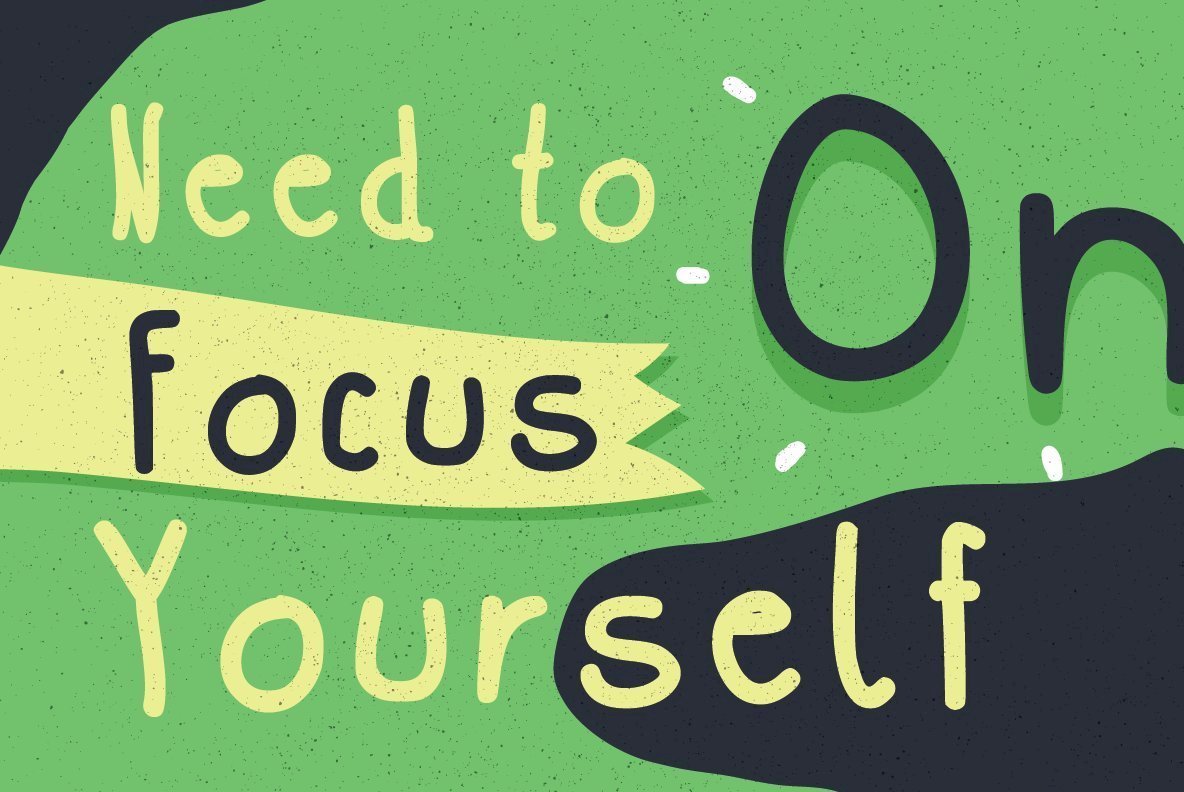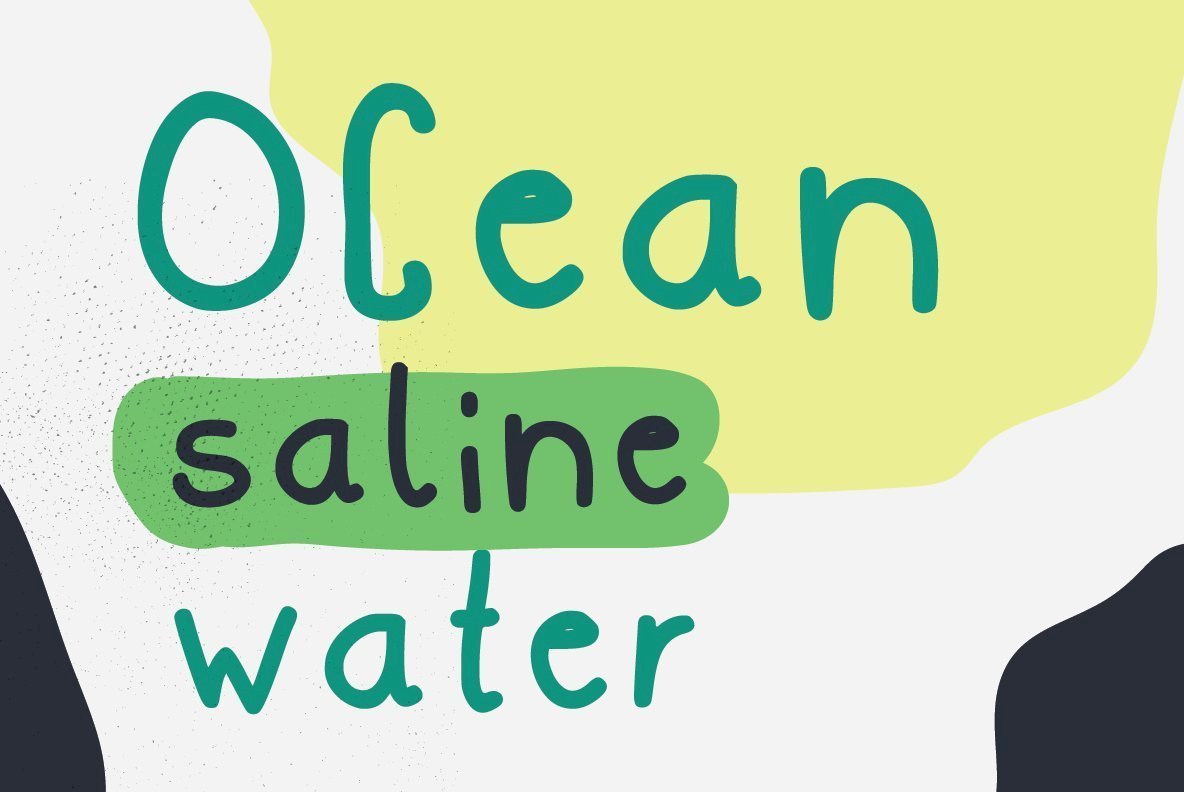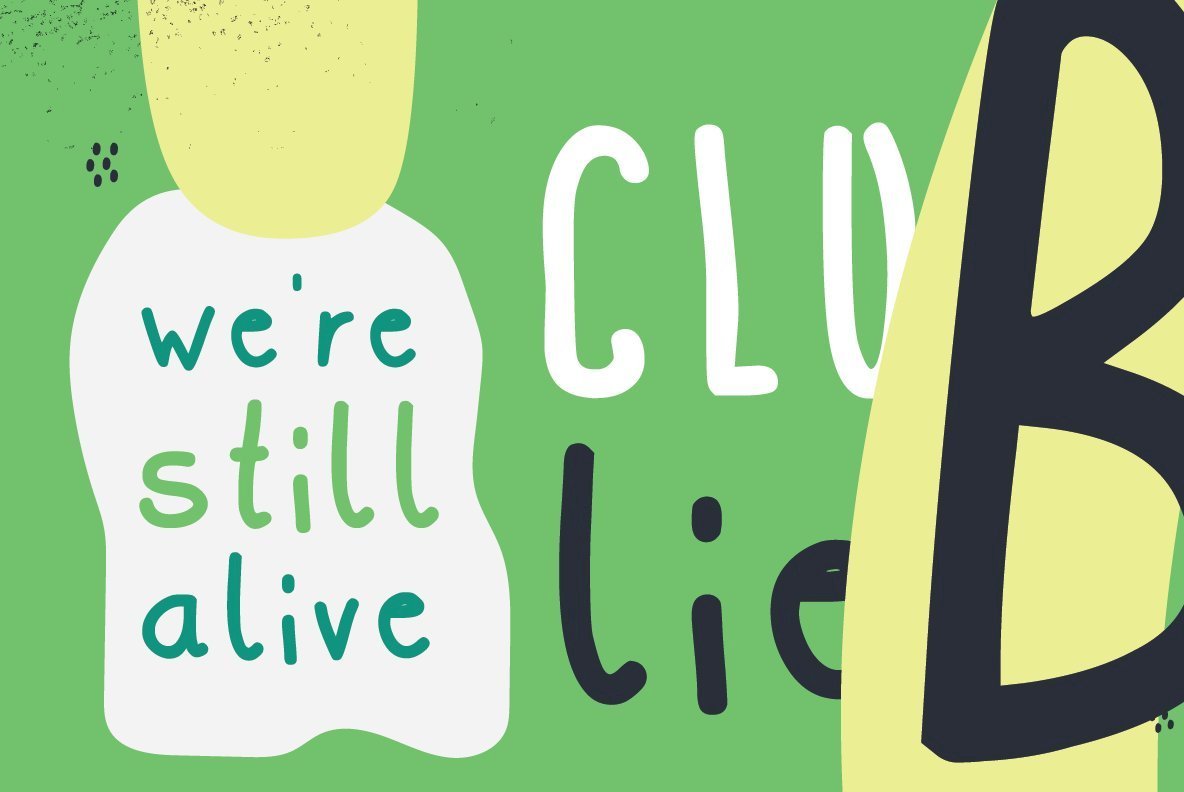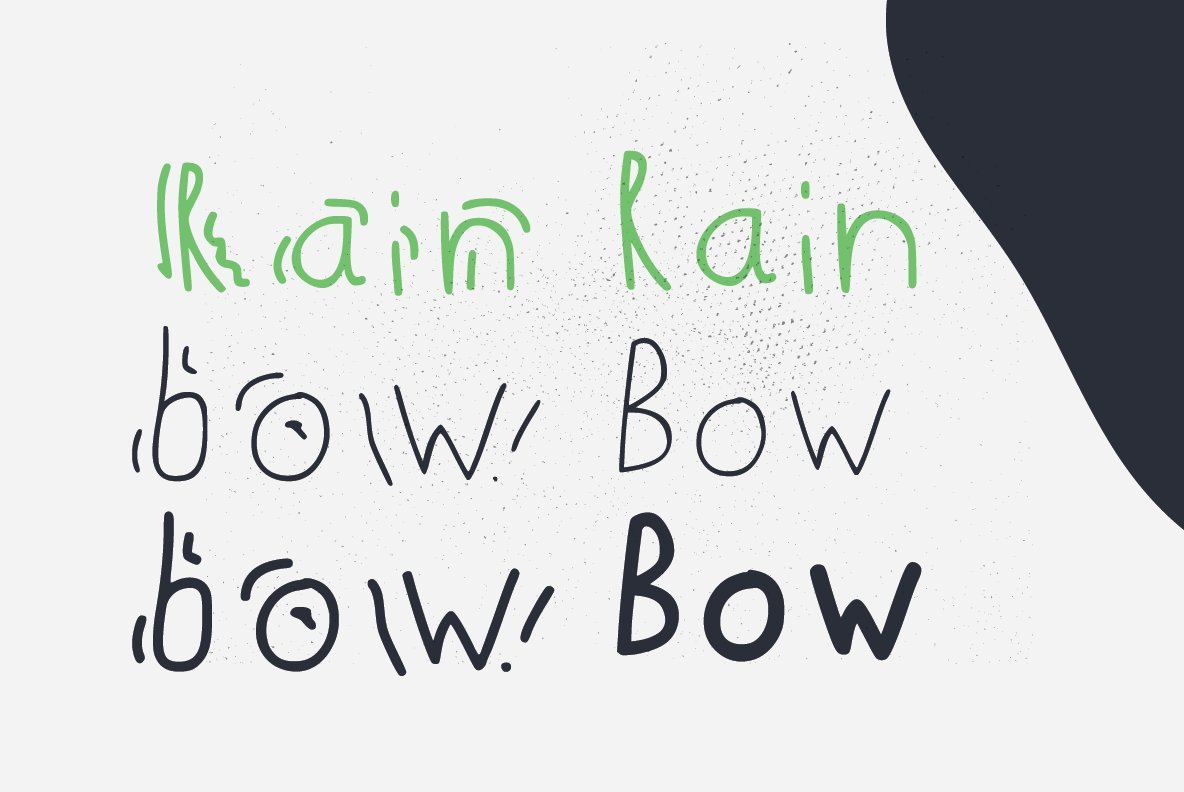
Club 57 1
With a nod towards Keith Haring illustrations, graffiti and artwork this font moves and shakes in its own way, probably a bit like the way Kieth and his friends may have danced at the very club this font is named after. It comes in three styles so you can mix up the marks and shapes with font as you see fit. Take influence from the great New York artist himself and get your creative side on, do it with style, flair and get your work out there.